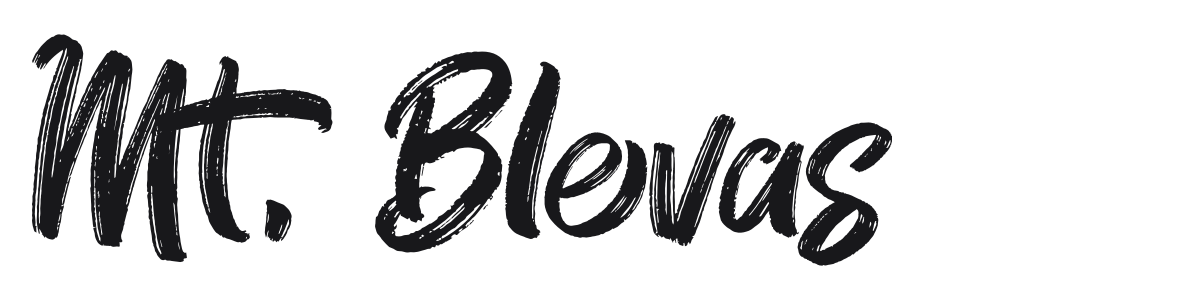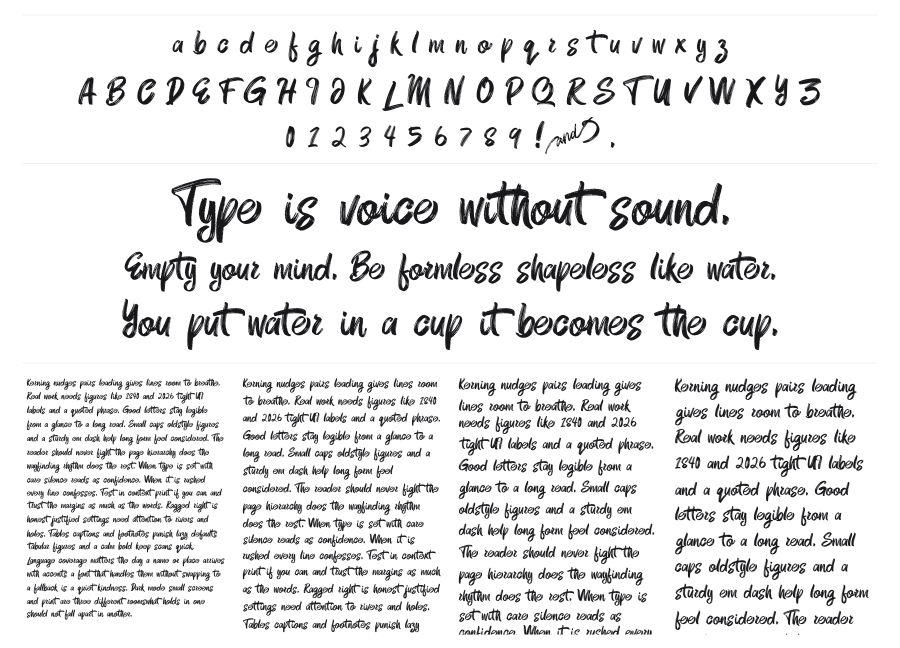
Mt. Blevas
Mt. Blevas is a bold brush script with rough ink textures and expressive, high-contrast strokes. The irregular edges and sweeping connections give it a genuine handmade quality that works well for brands wanting warmth and authenticity. It hits hard at display sizes on packaging, posters, and social graphics.